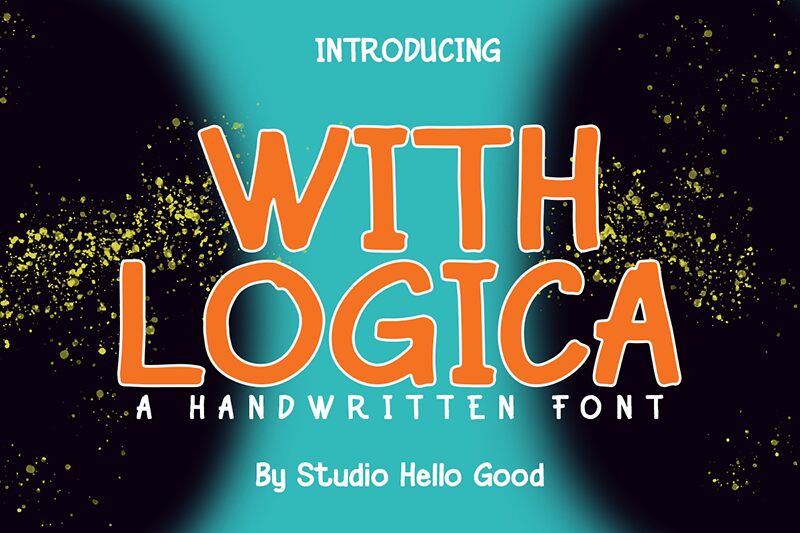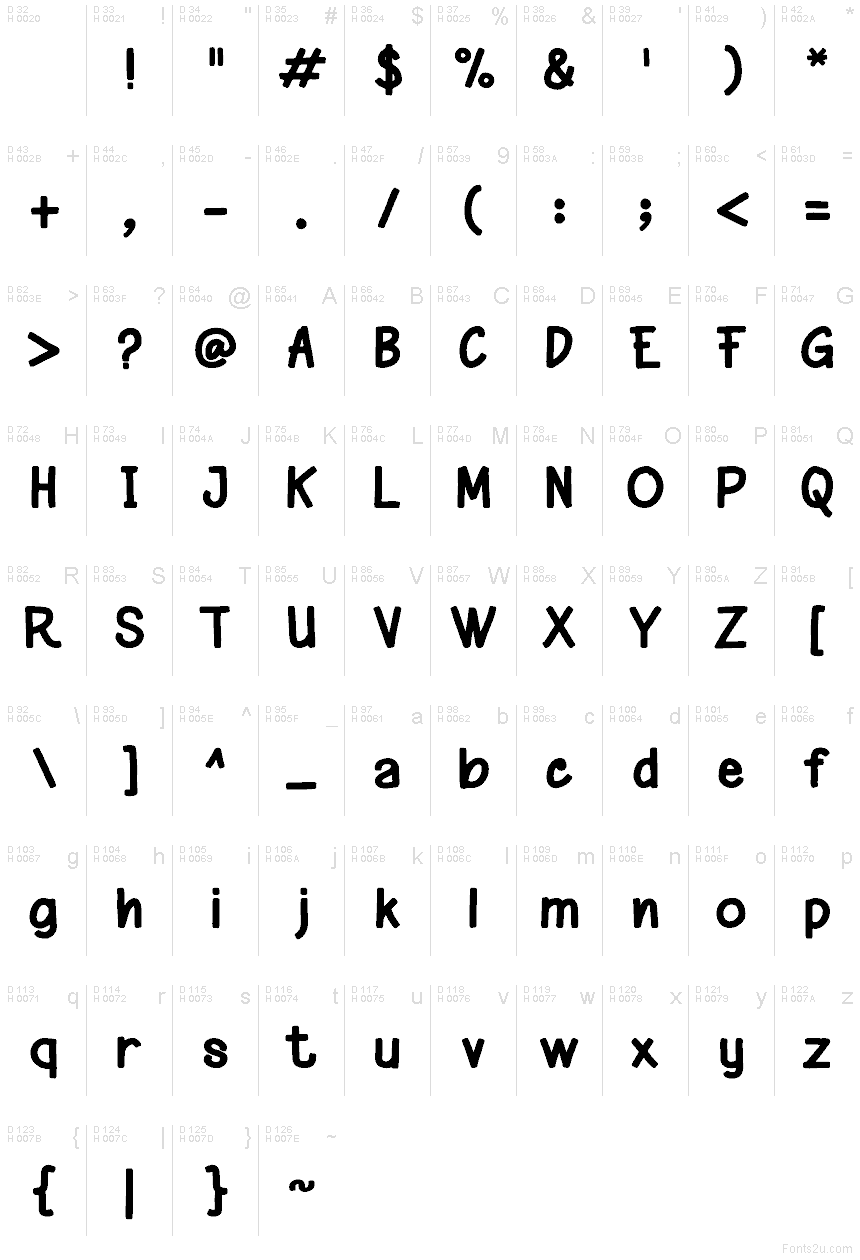
With Logica
With Logica font by Studio Hello Good is a free handwritten typeface. It solves the usual handwritten dilemma: charming but hard to read. Thick, marker-like strokes, rounded corners, and a gently inky texture keep it warm, while the even rhythm and roomy shapes make words snap into focus. It feels friendly and hand-made without the mess, so headlines stay bold and copy doesn’t wobble.
Using With Logica, you’ll get easy wins on product packaging, kid-focused branding, café menus, thumbnail graphics, event flyers, stickers, and casual onboarding screens. This free font carries weight on its own, but pairs smoothly with a clean geometric sans for body text. Set it a touch larger than your default to bring out that cozy, inky grain.